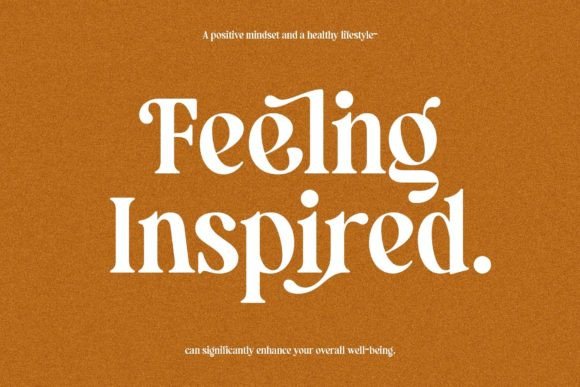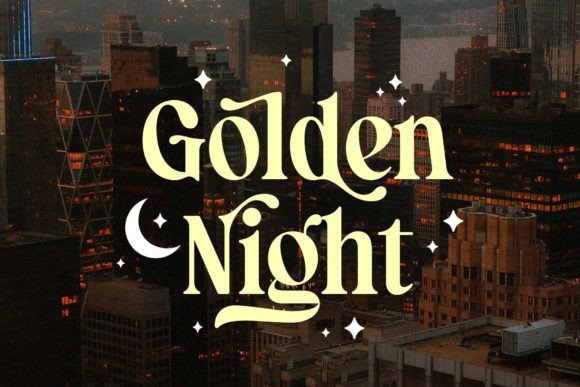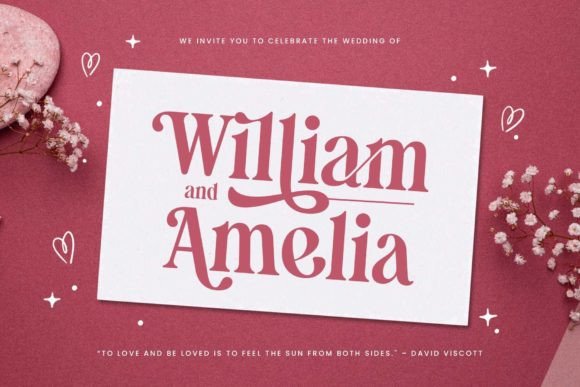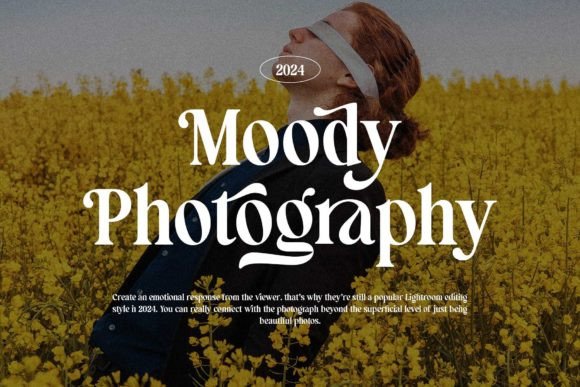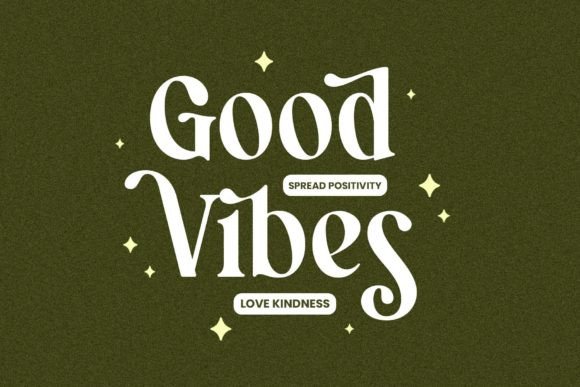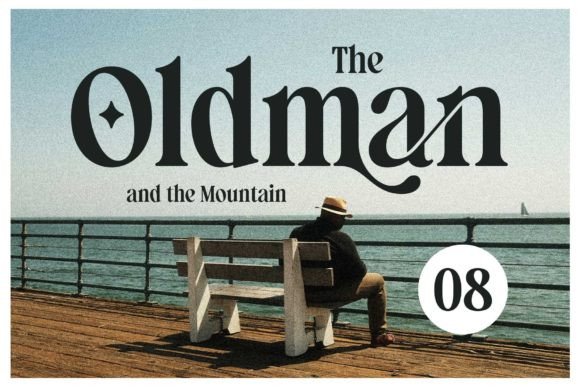
Introduction to Manshera Romika Font
As a designer, have you ever been searching for that perfect font to elevate your creative project? Maybe you’re working on a logo for a fashion brand, designing a magazine cover, or crafting a wedding invitation. Whatever your project, finding the right font can be the key to making it truly stand out. That’s where Manshera Romika Font comes in – a modern, classy, and bold serif font that’s sure to bring a touch of sophistication to your design.
With over 500 glyphs and a range of special characters, Manshera Romika Font is the ultimate design resource for anyone looking to add a little extra flair to their work. From its sleek, sexy shape to its elegant and cheerful vibe, this font is perfect for designers who want to create something truly unique and memorable.
Key Features of Manshera Romika Font
- Unique, hand-drawn design that adds a personal touch to any creative project.
- High-resolution design ensures that the font looks crisp and clear on both print and digital materials.
- Perfect design resource for designers, artists, and anyone looking to add a creative touch to their projects.
Honest Review: Manshera Romika Font
I recently had the chance to work with the Manshera Romika Font, and I must say it’s been a delightful addition to my design resource collection. This font is perfect for anyone looking to add a touch of elegance to their creative project.
Here are a few things that I think work particularly well with the Manshera Romika Font:
- ✨ High-quality design: The Manshera Romika Font is designed with precision and care, resulting in a crisp and clear font that’s perfect for digital designs.
- ✨ Versatility: This font can be used for a wide range of projects, from headings to body text, and it looks great in both print and digital formats.
- ⚠️ Limited font styles: While the Manshera Romika Font is a beautiful addition to any design, it’s only available in a few styles, which may limit its use in certain projects.
Overall, I’m really impressed with the Manshera Romika Font. It’s a great addition to any design resource collection, and it’s perfect for anyone looking to add a touch of elegance to their creative project.
Manshera Romika Font
The Manshera Romika Font is a high-quality, free download design resource ideal for various creative projects. This font features a unique style, making it perfect for designers seeking a distinct look.
Tips for Getting the Most Out of Manshera Romika Font
To maximize the effectiveness of the Manshera Romika Font, consider the following tips:
- Experiment with different font sizes and styles to achieve the desired effect.
- Pair the Manshera Romika Font with a transparent background to create a clean and modern design.
- Use the Manshera Romika Font in conjunction with other design elements to create a cohesive look.
The Manshera Romika Font is ideal for a variety of design projects, including:
- Website design and development